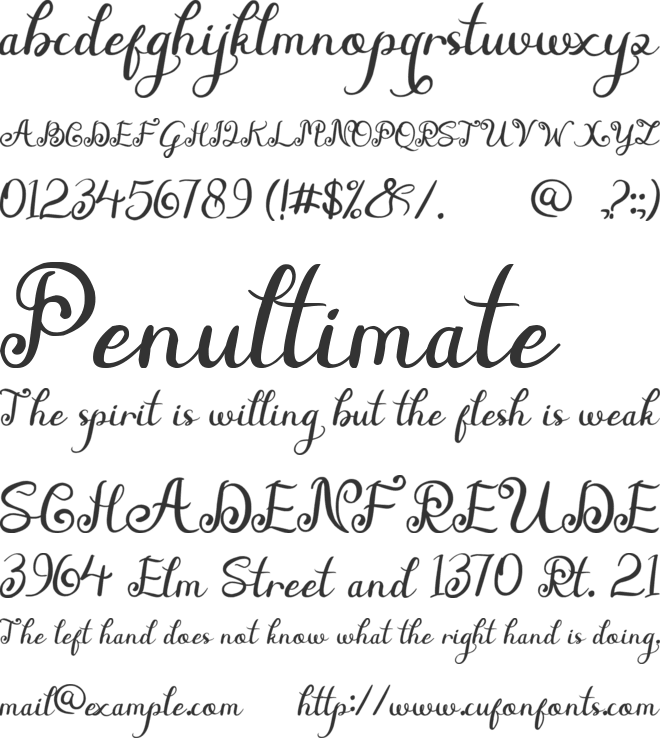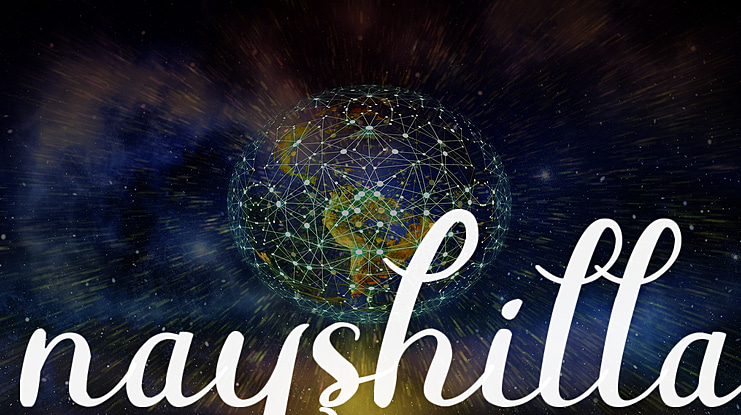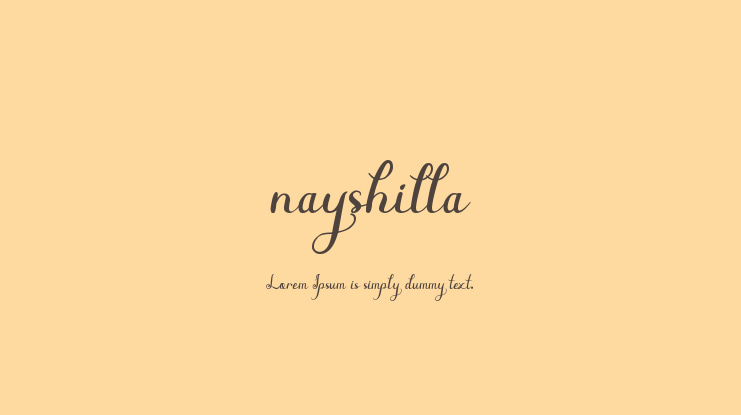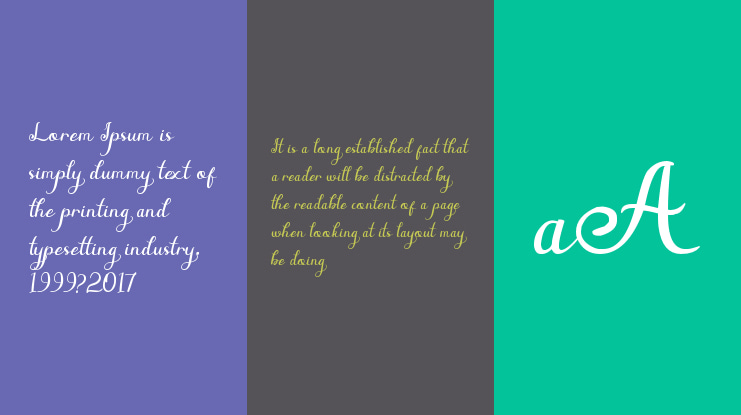
nayshilla Font
The beauty nayshilla is modern script and sans, very suitable for any project or business, it will give stunning and ellegant look for your design, and this font duo can be combined to give your artword more perfect.